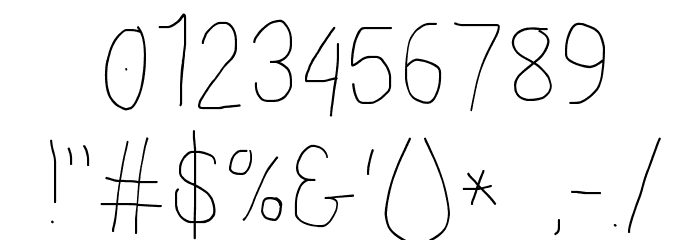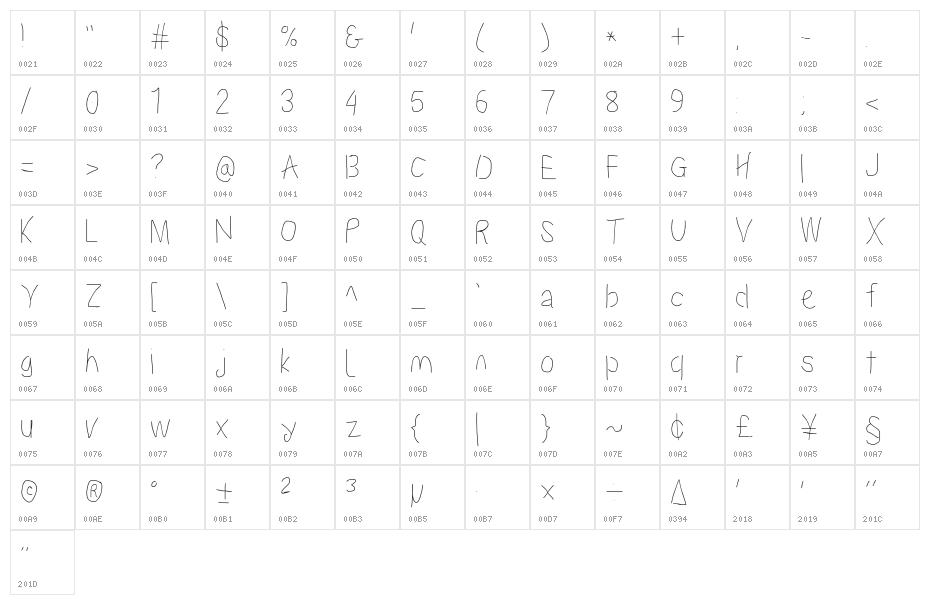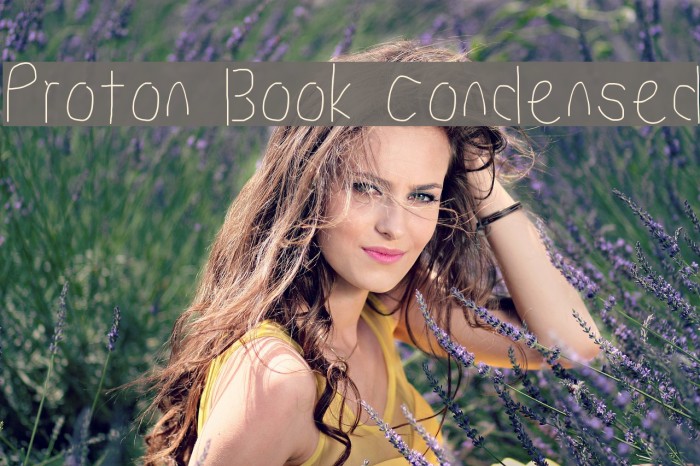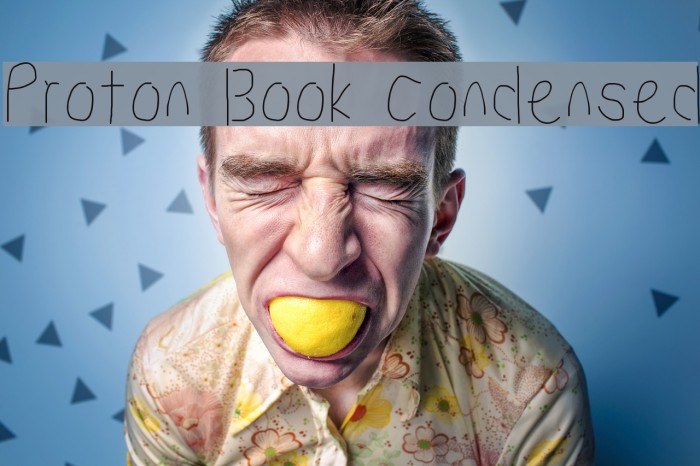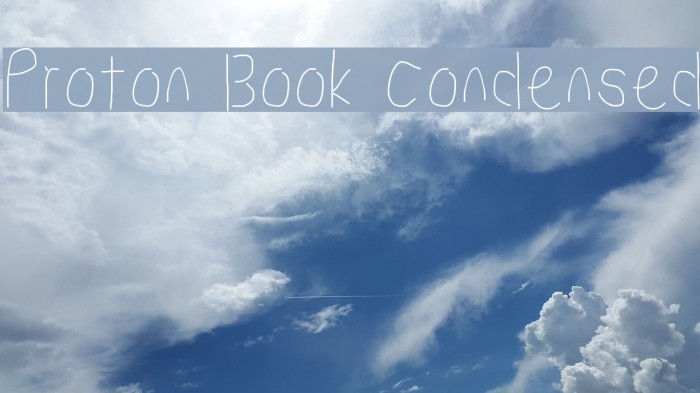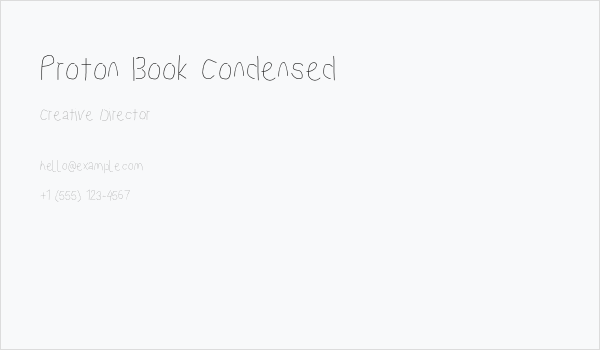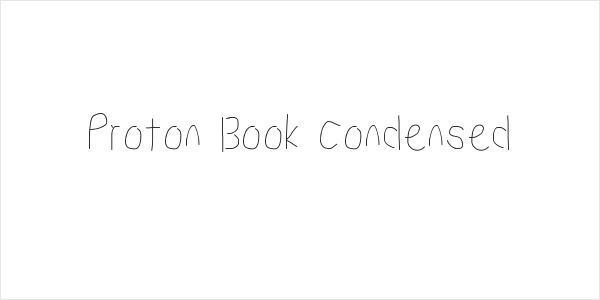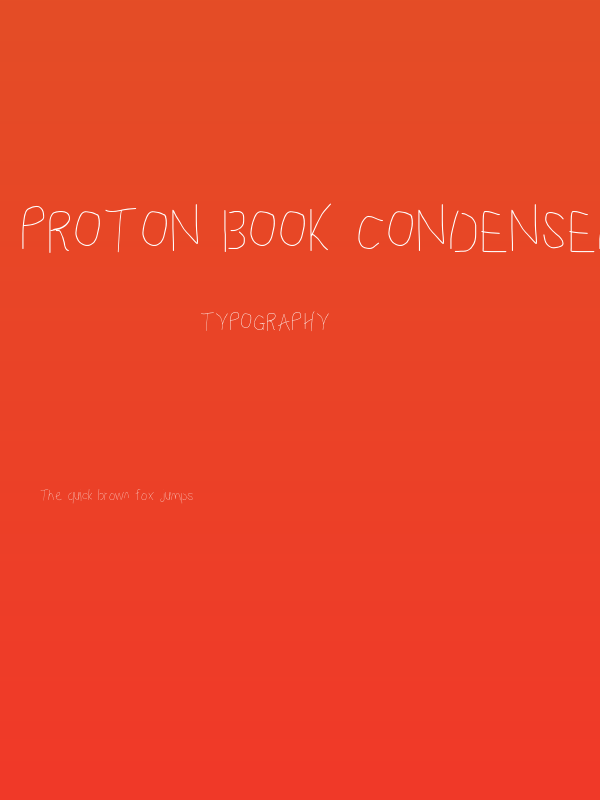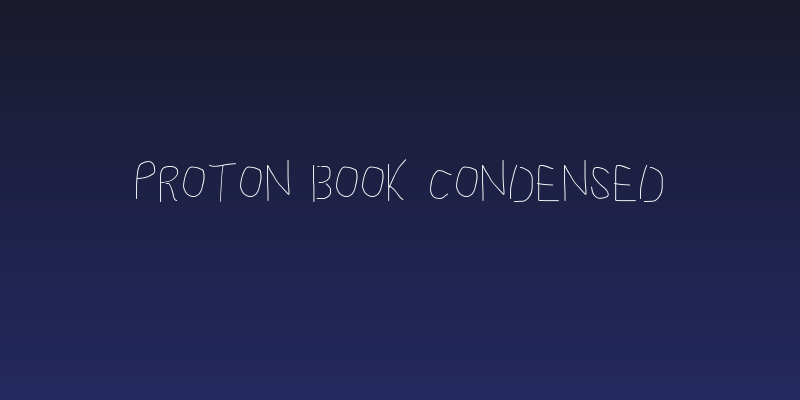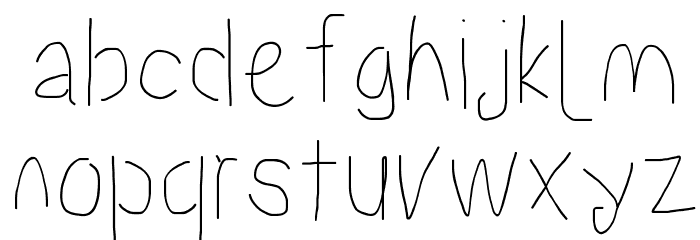
Proton Book Condensed Font
Proton Book Condensed Description
This font features a unique handwritten style with a condensed form, giving it a casual yet sophisticated appearance. The letters are tall and narrow, with a slight irregularity that adds a personal touch. The strokes are consistent in width, providing a uniform look across all characters. The uppercase letters maintain a strong presence, while the lowercase letters are slightly more playful with rounded edges. Numbers are clear and easy to read, matching the overall aesthetic of the alphabet. Special characters are well-integrated, ensuring versatility in various text compositions. This font's distinct style makes it suitable for projects that require a personal, approachable feel.
| Overall Style | Casual, Personal |
| Proposed Projects | Ideal for personal branding, creative projects, invitations, and informal communications. |